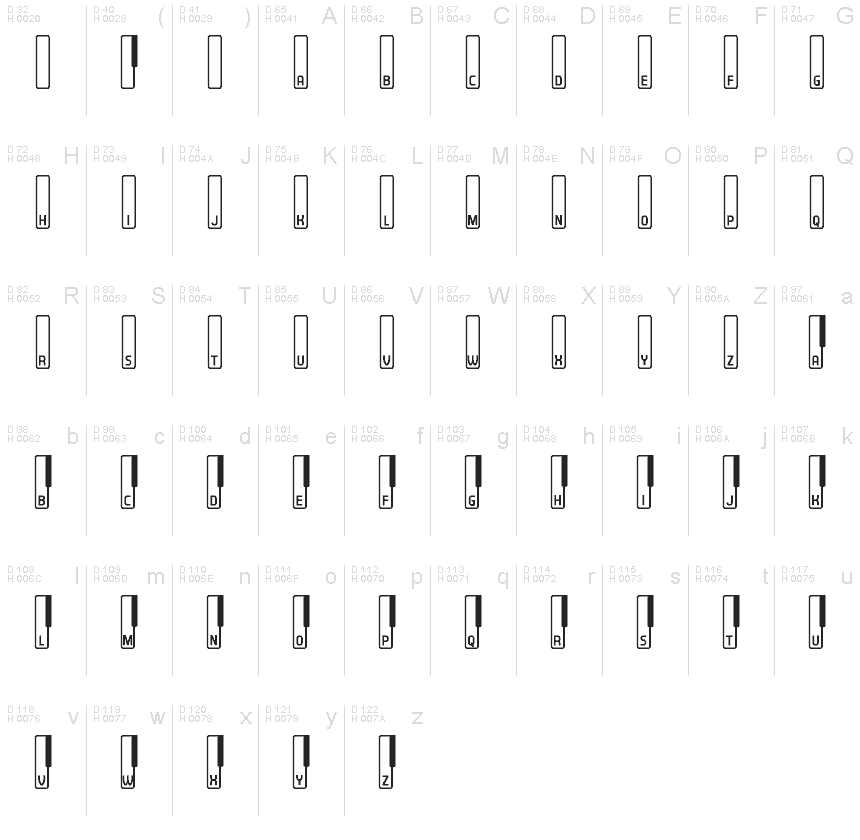
Synthesizer Regular
Synthesizer font is an innovative display typeface by Vladimir Nikolic. This geometric font appears straightened in form with squared corners and clean edges which are often single thick strokes. Black artistic rectangles appear on the inside of this free condensed font making it suitable for occasional use in personal and professional projects.
Used most effectively in headings, Synthesizer can be used on magazine and newspaper covers, logos, advertisements, posters, and signage. It can also be part of packaging designs for products of different sectors. Websites, blogs, apps interfaces will benefit from its decorative touch as well especially if used minimally among other conventional fonts.